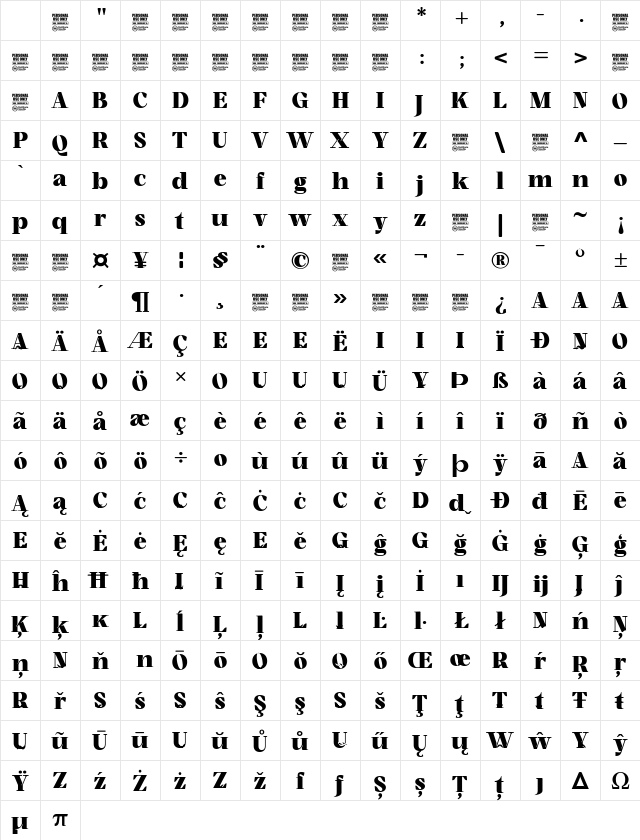
Brigham Display Demo is built around its visual character rather than neutral utility - its distinctive forms are designed to make an impression at display sizes.
Font Pairing: Pair with a clean neutral sans-serif for body copy to let Brigham Display Demo's character lead without overwhelming the composition.
Pro Tip: Use Brigham Display Demo exclusively at display sizes - it was designed to be seen, not read at length. Let a neutral companion handle body copy.